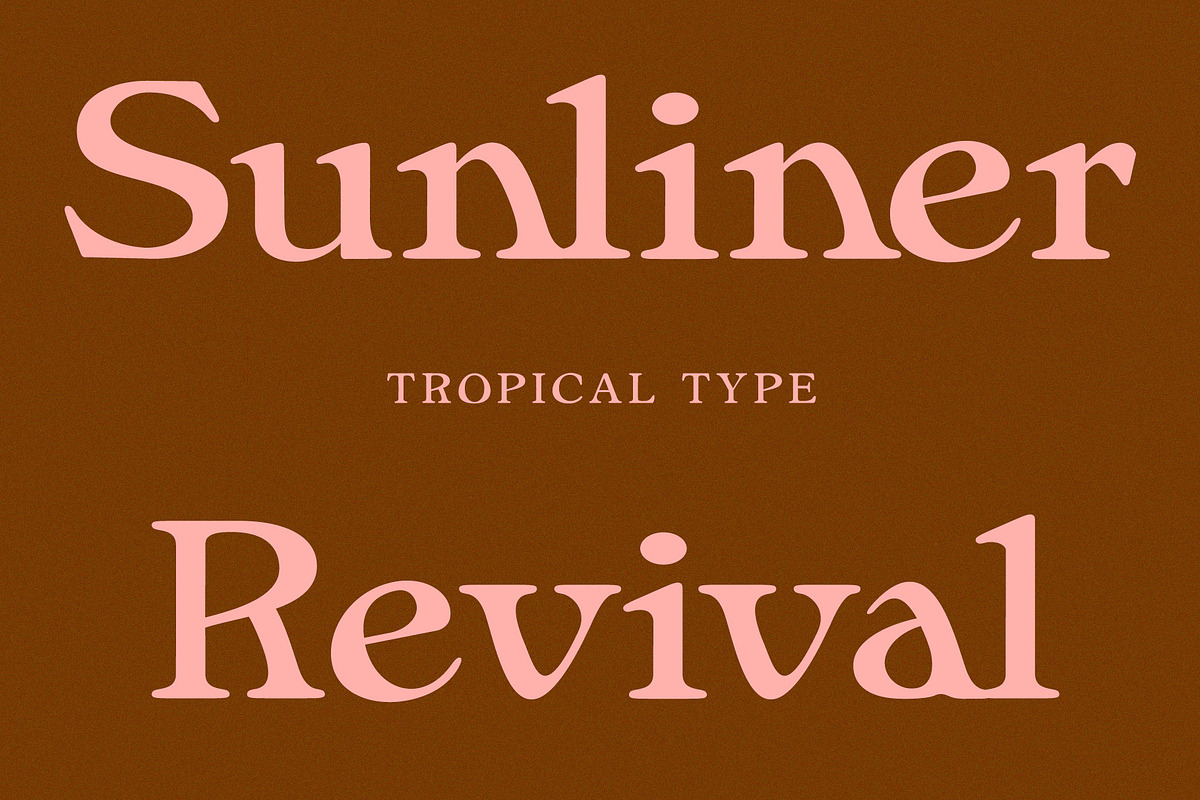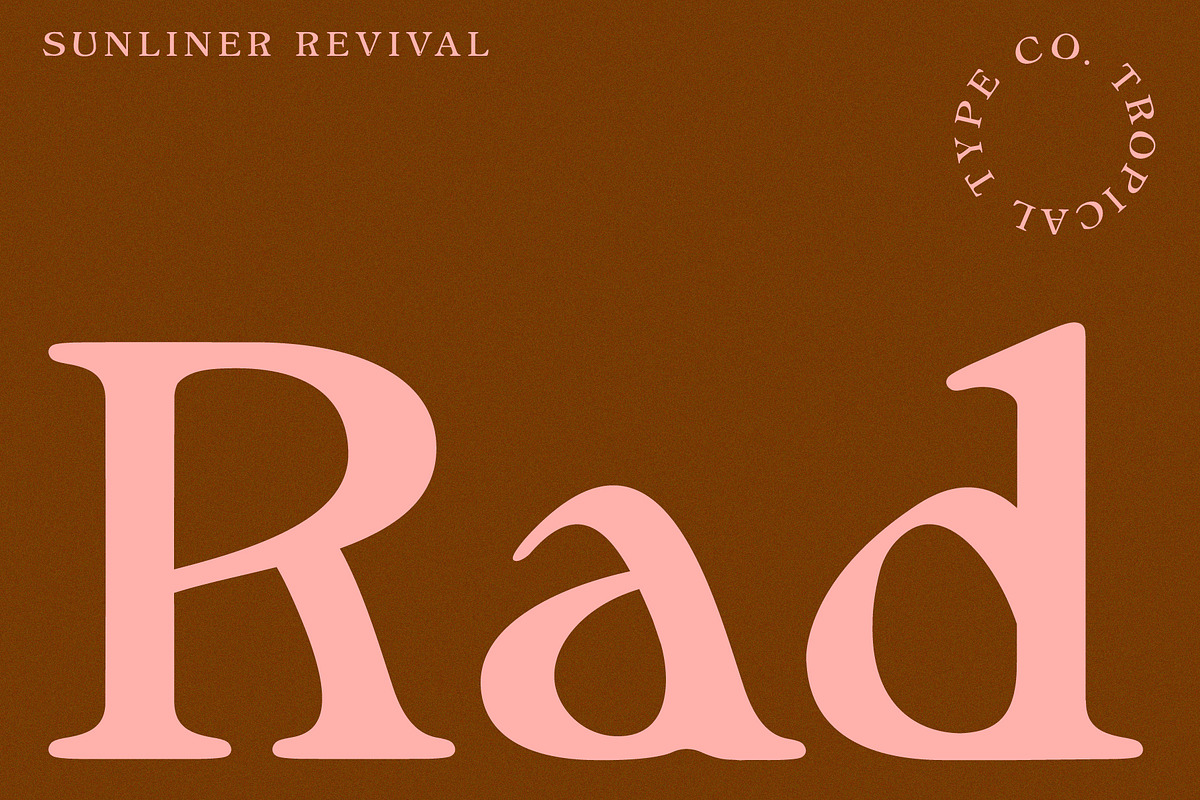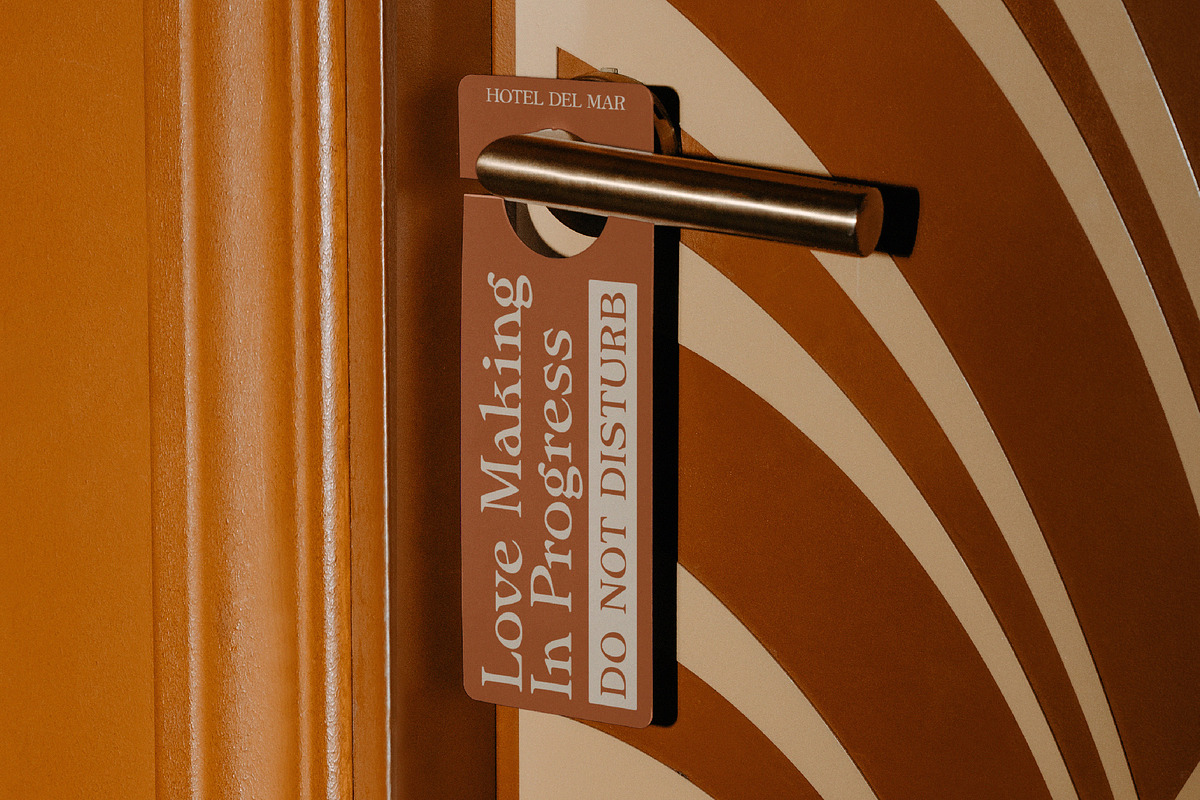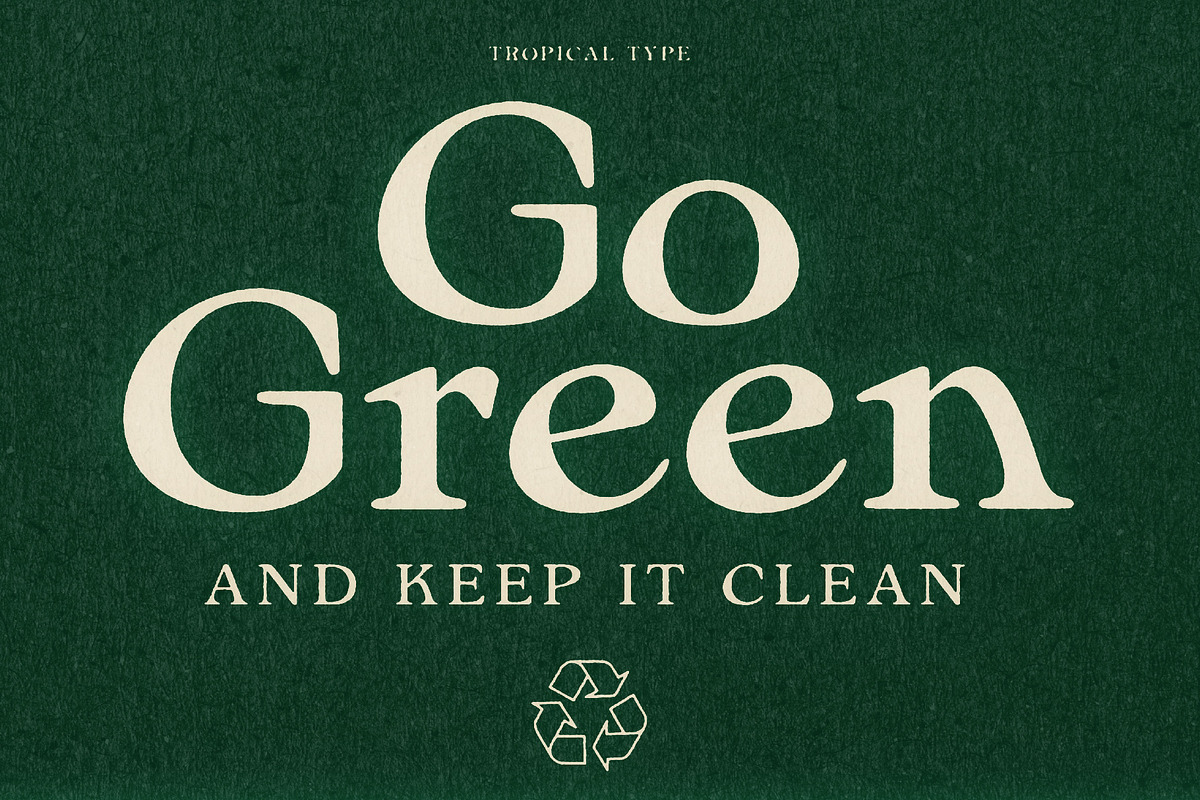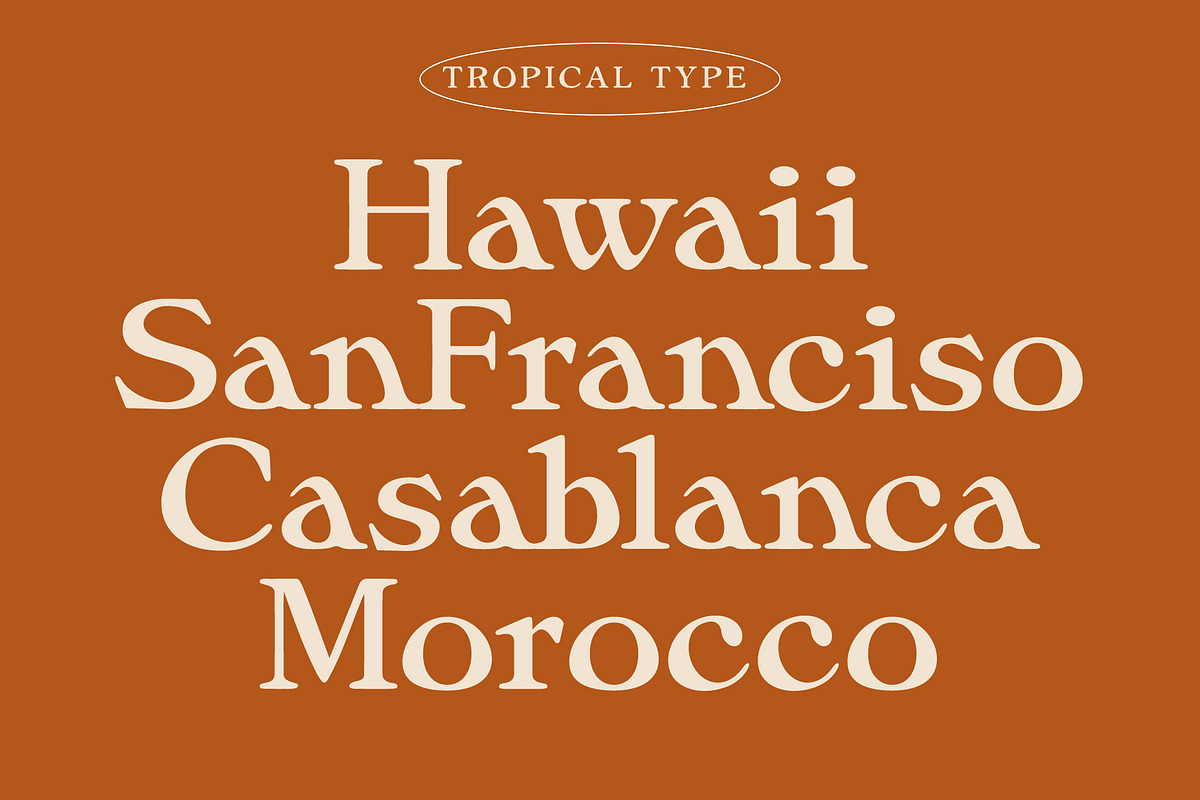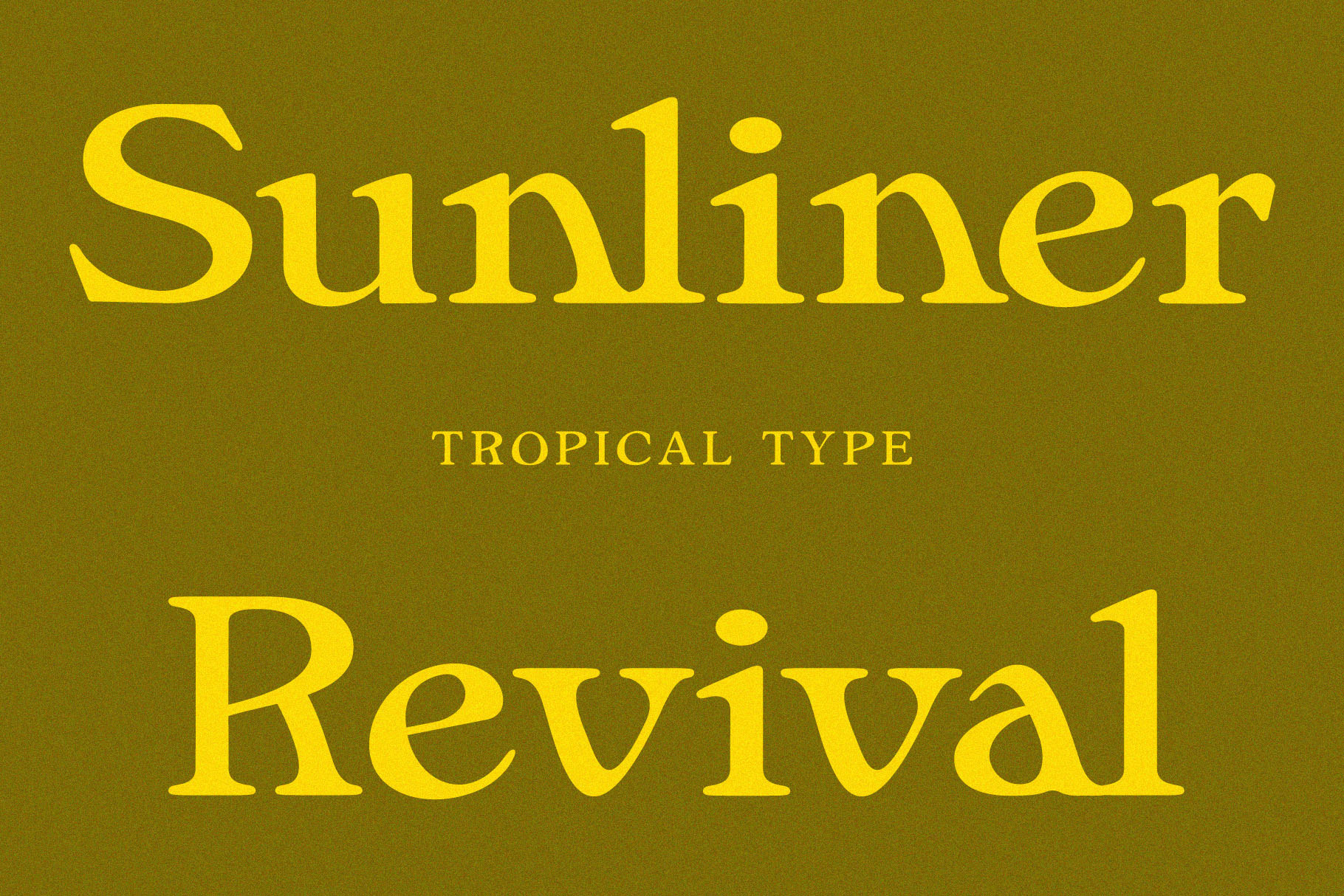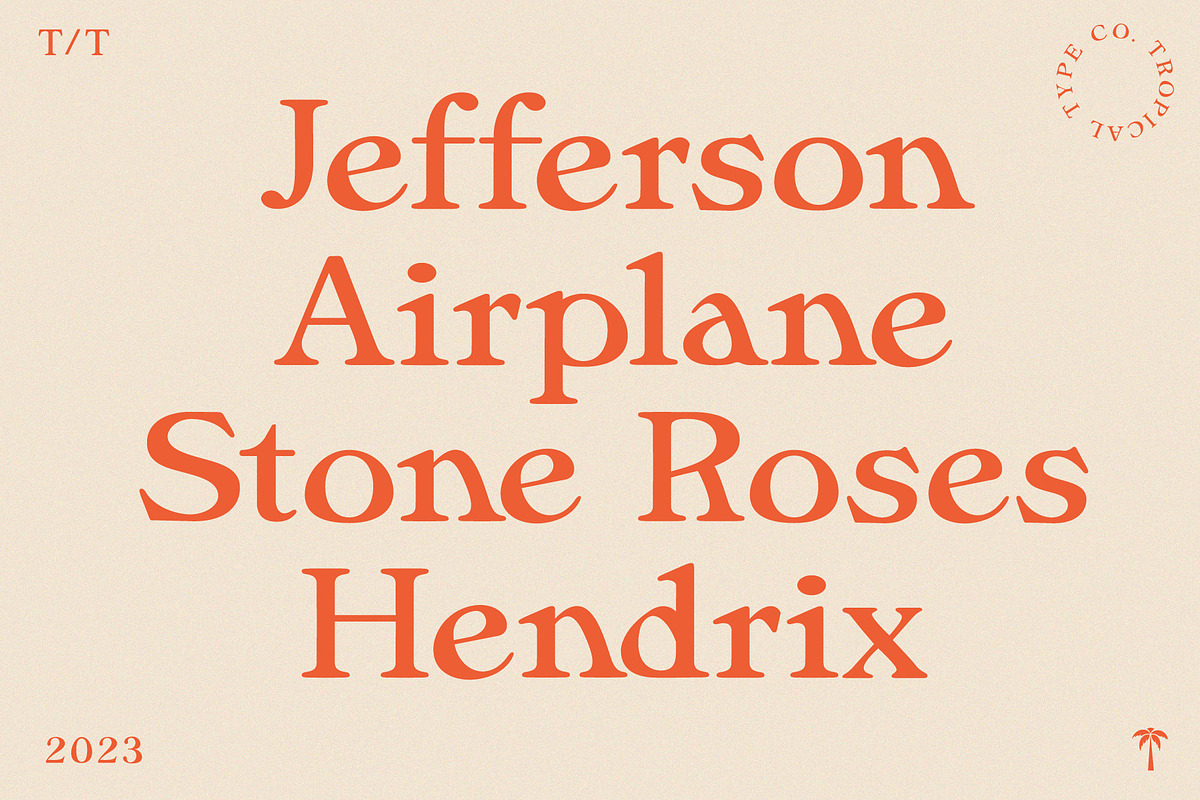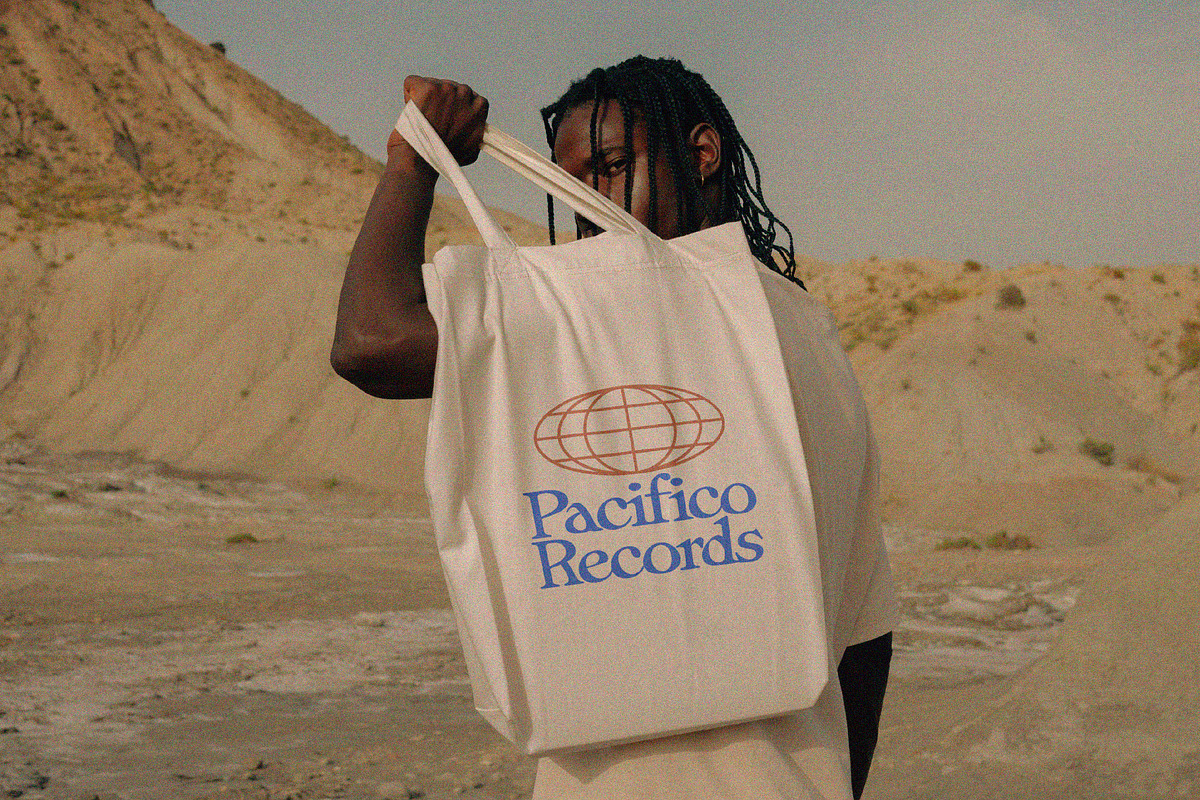
Sunliner Revival Retro Font
Sunliner is influenced by popular fonts of yesteryear such as Cooper Black, Souvenir and Windsor. The increased contrast adds a subtle modern touch but this font is all about nostalgia. The warm fuzz of a record, the touch of a velvet couch. Coco butter mixed with cigar smoke, you get the idea.